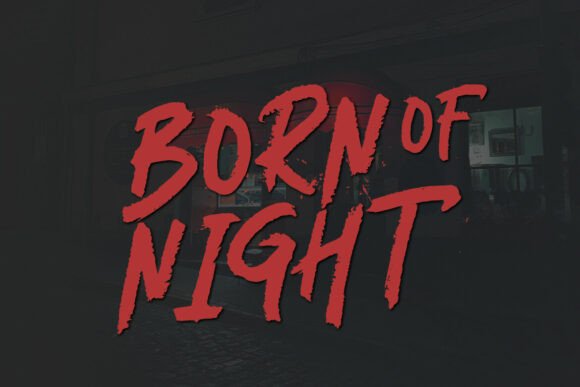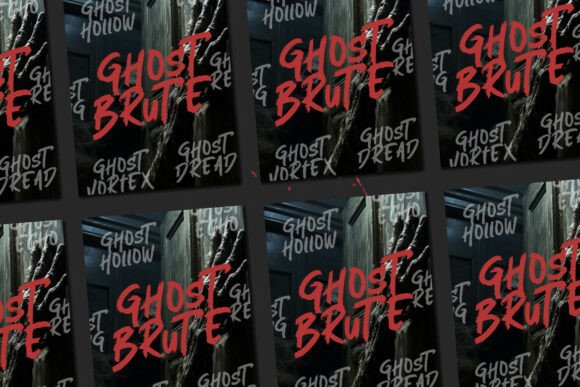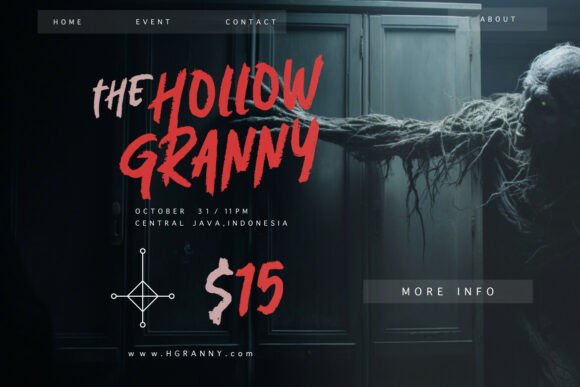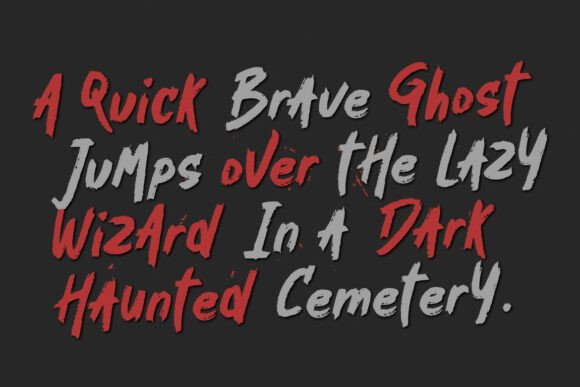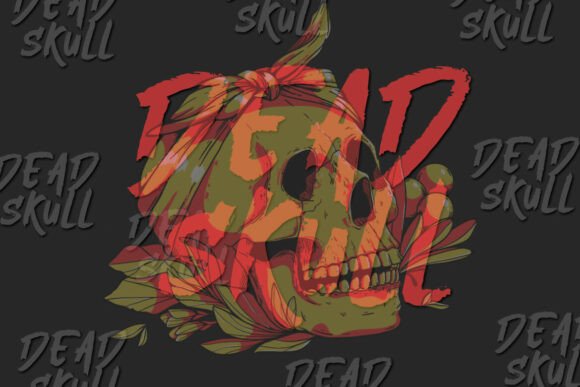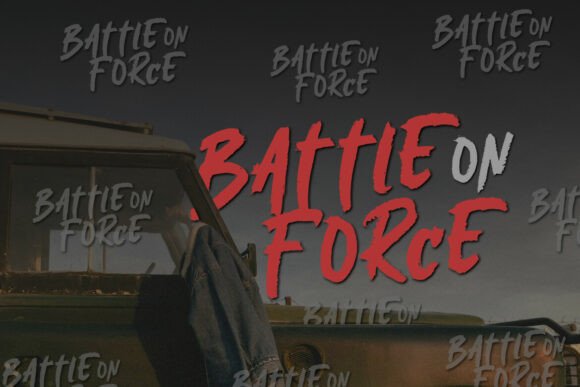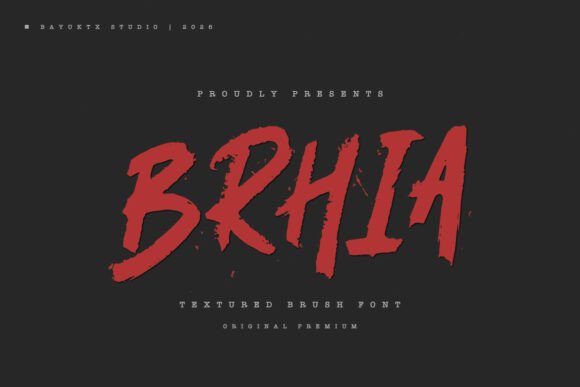
Unleash Your Creativity with Brhia Font: A Bold and Expressive Typeface
Are you tired of using the same old fonts in your designs? Look no further than Brhia Font, a bold and expressive typeface that’s inspired by raw brush strokes, hand-painted lettering, and gritty artistic textures. With its rough edges, dynamic strokes, and natural imperfections, Brhia delivers a strong and impactful visual presence that’s sure to make your designs stand out.
The Inspiration Behind Brhia
Brhia Font is designed to capture the energy of real brush movement, combining expressive hand-drawn forms with a modern and edgy aesthetic. Each character is crafted with textured details and organic flow, creating a powerful and authentic look that feels alive and full of attitude. The font’s unique texture and natural imperfections give it a rebellious and artistic vibe that’s perfect for designers who want to add a bold and creative touch to their work.
Key Features of Brhia Font
• Raw Brush Strokes: Brhia Font features rough edges and dynamic strokes that give it a hand-painted, artistic feel.
• Textured Details: Each character is crafted with textured details that add depth and visual interest to your designs.
• Organic Flow: The font’s organic flow and natural imperfections create a sense of movement and energy.
• Bold and Expressive: Brhia Font is perfect for designs that need a strong and impactful visual presence.
Brhia Font is perfect for designers and crafters who want to add a bold and artistic touch to their work. Its striking and versatile style makes it ideal for a wide range of creative projects, including:
• Logos and Branding: Use Brhia Font to create a bold and memorable logo that stands out from the crowd.
• Posters and Flyers: Add a touch of artistic flair to your posters and flyers with Brhia Font’s unique texture and expressive style.
• Social Media Graphics: Use Brhia Font to create eye-catching social media graphics that grab attention and drive engagement.
• Packaging Design: Add a bold and creative touch to your packaging design with Brhia Font’s textured details and organic flow.
Why Choose Brhia Font?
With so many fonts to choose from, why choose Brhia Font? Here are just a few reasons why Brhia stands out from the crowd:
• Unique Texture: Brhia Font’s unique texture and natural imperfections make it a one-of-a-kind typeface that’s sure to grab attention.
• Versatility: Brhia Font is versatile and adaptable, making it perfect for a wide range of creative projects.
• Easy to Use: Brhia Font is easy to use and pairs well with a variety of other fonts, making it easy to incorporate into your existing design workflow.
If you’re looking for a bold and expressive typeface that adds a touch of artistic flair to your designs, look no further than Brhia Font. With its raw brush strokes, textured details, and organic flow, Brhia Font is perfect for designers and crafters who want to create bold and eye-catching designs that stand out from the crowd. So why wait? Download Brhia Font today and unleash your creativity!